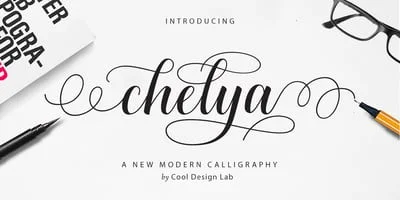
Cheliya Font
Cheliya Font is ideal for elegant personal branding, boutique fashion campaigns, sophisticated lifestyle magazines, luxury wellness centers, graceful beauty products, refined feminine brands, upscale spa materials, delicate jewelry marketing, gentle coaching services, and beautiful applications that celebrate authentic feminine elegance and sophisticated personal expression.
What makes Cheliya Font truly exciting is its exquisite embodiment of feminine grace and sophisticated charm that creates an instantly elegant and approachable typographic voice for modern women's lifestyle communications. This exceptional typeface combines delicate beauty with confident sophistication, featuring graceful letterforms and refined proportions that convey both gentle strength and timeless elegance. The font's feminine personality and sophisticated authenticity make it perfect for brands seeking to communicate empowerment through beauty, confidence through grace, and the inspiring power of authentic feminine expression in today's dynamic world.
The Cheliya Font family includes multiple weights and styles: Light, Regular, Medium, Bold, and Elegant variations designed for maximum feminine appeal. Each family member maintains the distinctive graceful character while offering flexibility for diverse feminine applications and sophisticated branding systems. The comprehensive character set supports elegant typography needs and refined design elements, making it suitable for international feminine communications.
When you choose Cheliya Font, you're selecting a typography gem that delivers authentic feminine sophistication and graceful elegance to every beautiful project. This refined typeface excels in applications where feminine grace and sophisticated beauty are paramount, delivering exceptional elegance while maintaining authentic feminine strength. Whether you're designing beauty brands, lifestyle campaigns, feminine products, or sophisticated marketing materials, this font provides the graceful sophistication and feminine elegance that resonates with modern women who appreciate authentic beauty, confident grace, and the sophisticated expression of feminine strength and personal style.